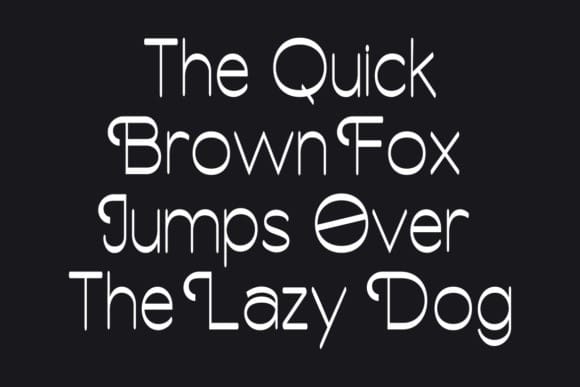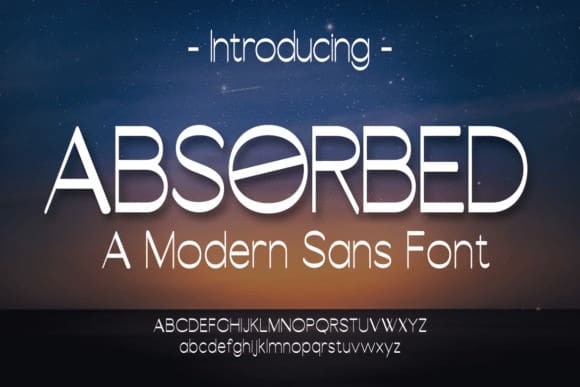
Absorbed Font
Absorbed Font is an elegant and modern sans serif font. This minimalist and clean vibe can easily apply to your favorite designs such as book covers, magazines, social media posts, invitations, and so much more!